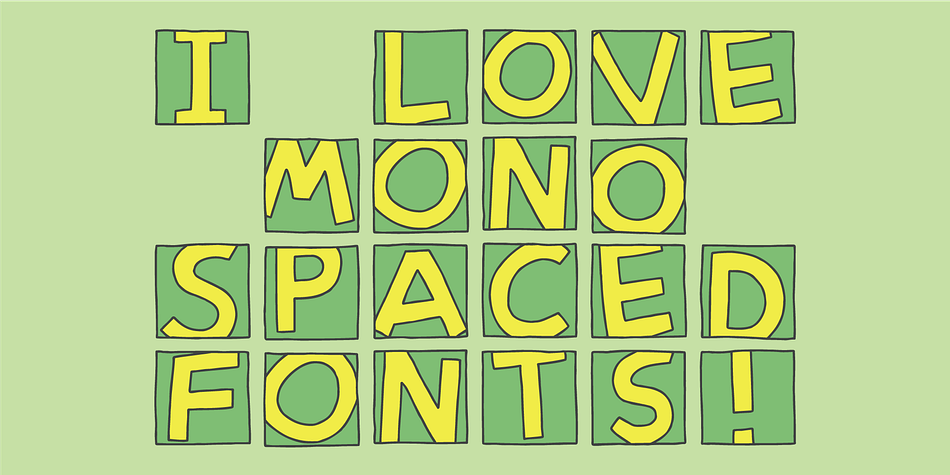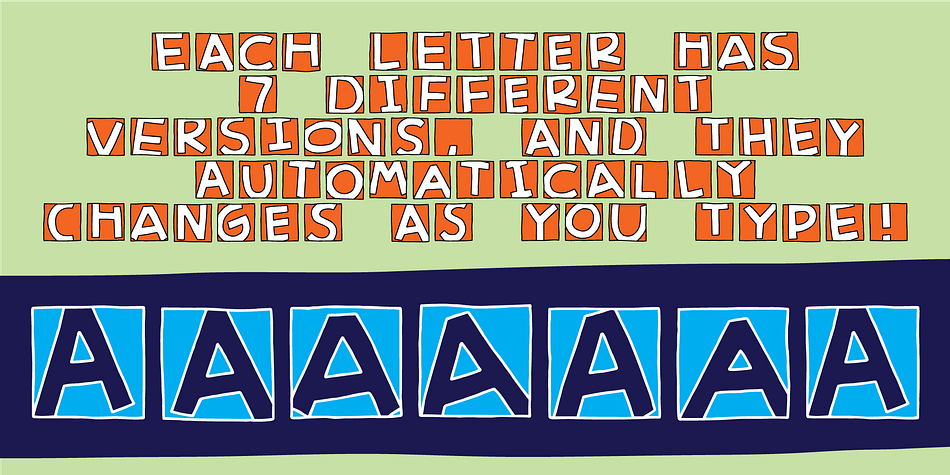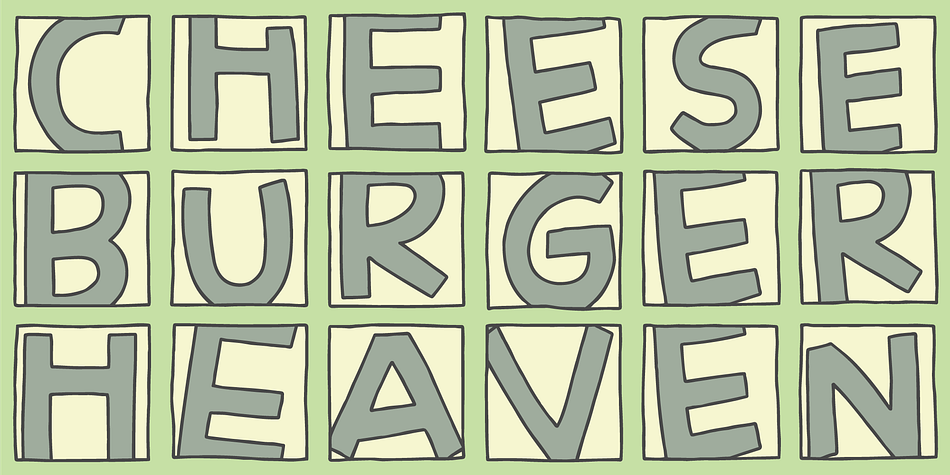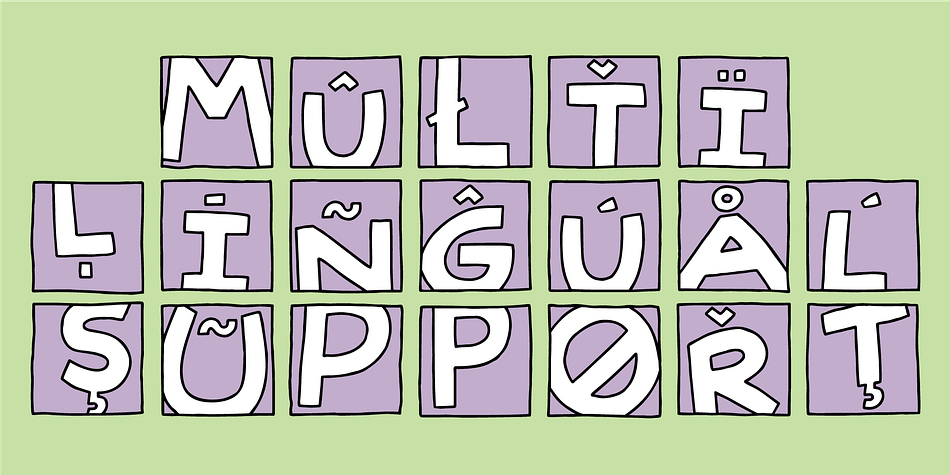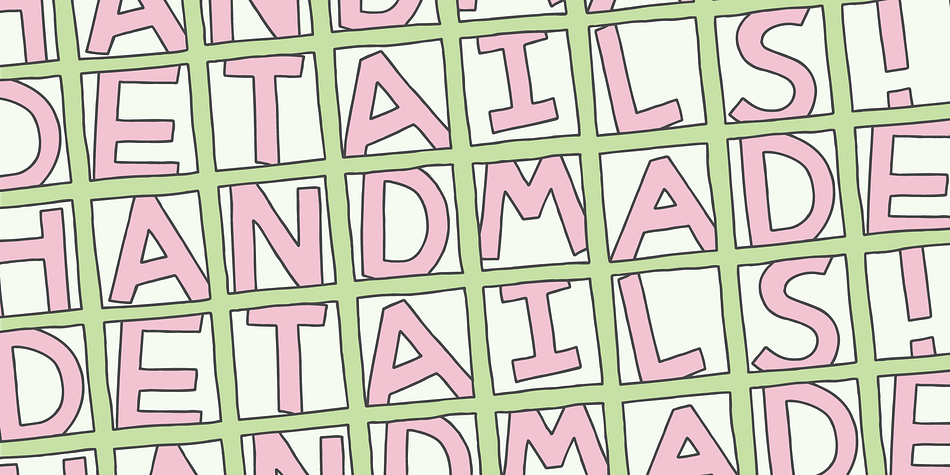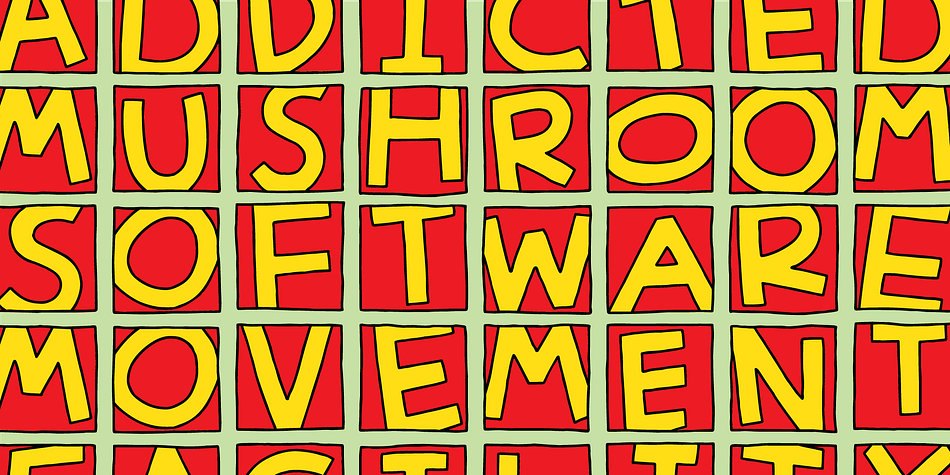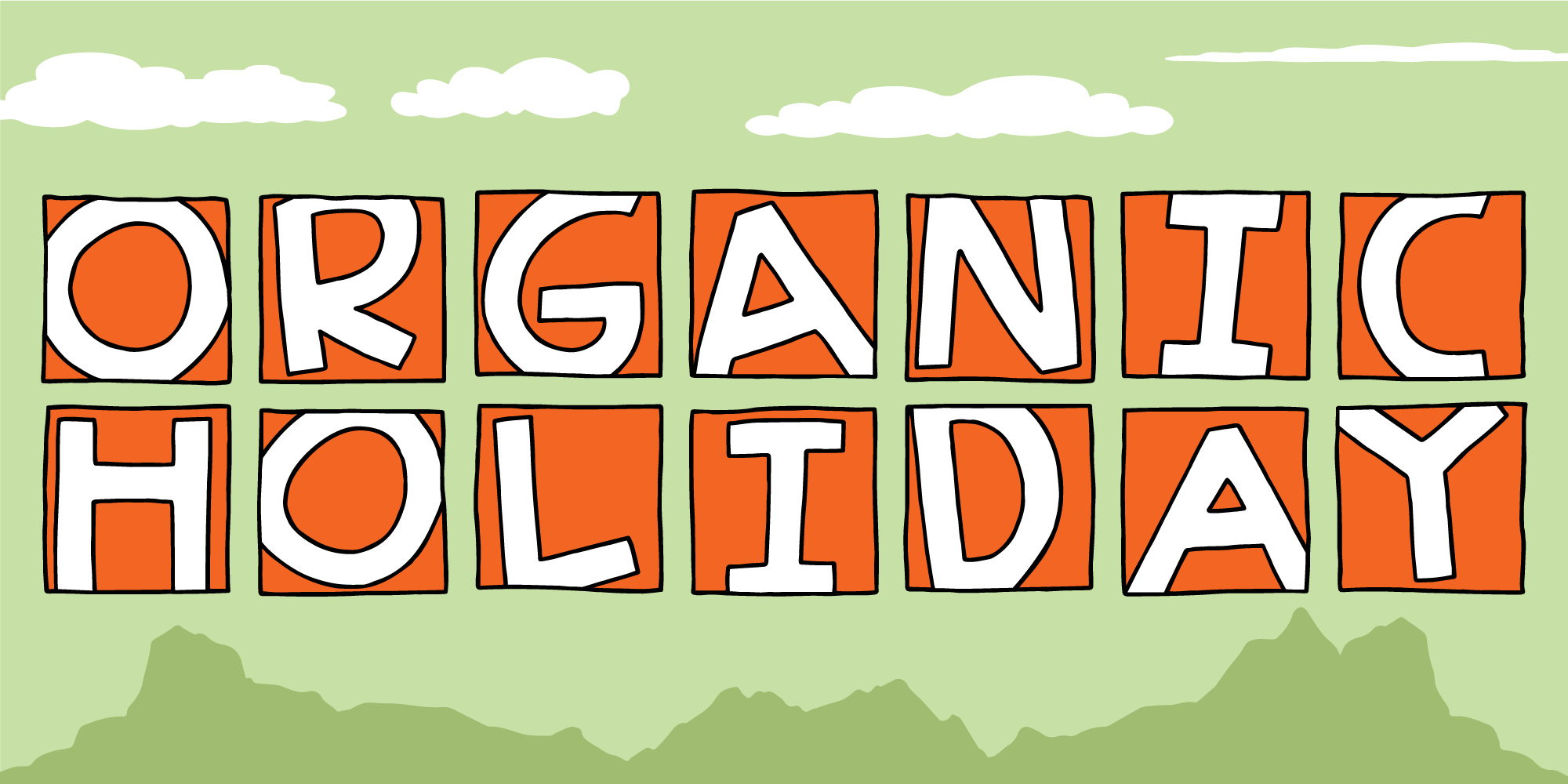
Organic Holiday
Designed by Jakob Fischer, Organic Holiday is a display font family. This typeface has eight styles and was published by Bogstav.
Say hello to my new organic monospaced font - it’s handmade and has this true organic look to it!
Choose between 7 different versions of each letter, or just type ahead and let the Contextual Alternates do their cycling of letters automatically!